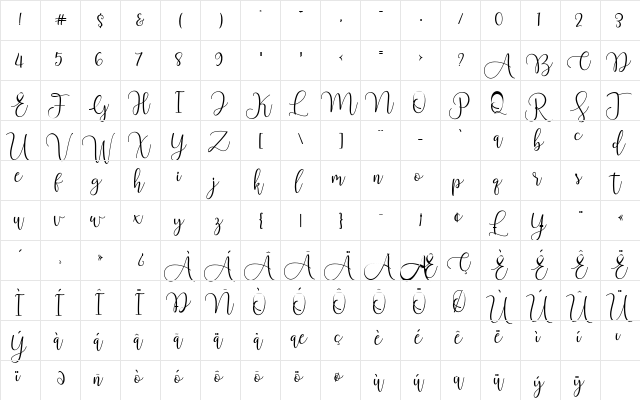
Chourush Regular
| Foundry | WDfont |
| Designer | Captain Jack |
Design Context for Chourush Typeface
Chourush is a composed and adaptable typeface that performs quietly and consistently across a wide range of design contexts.